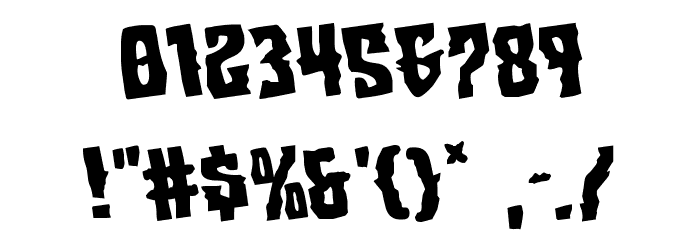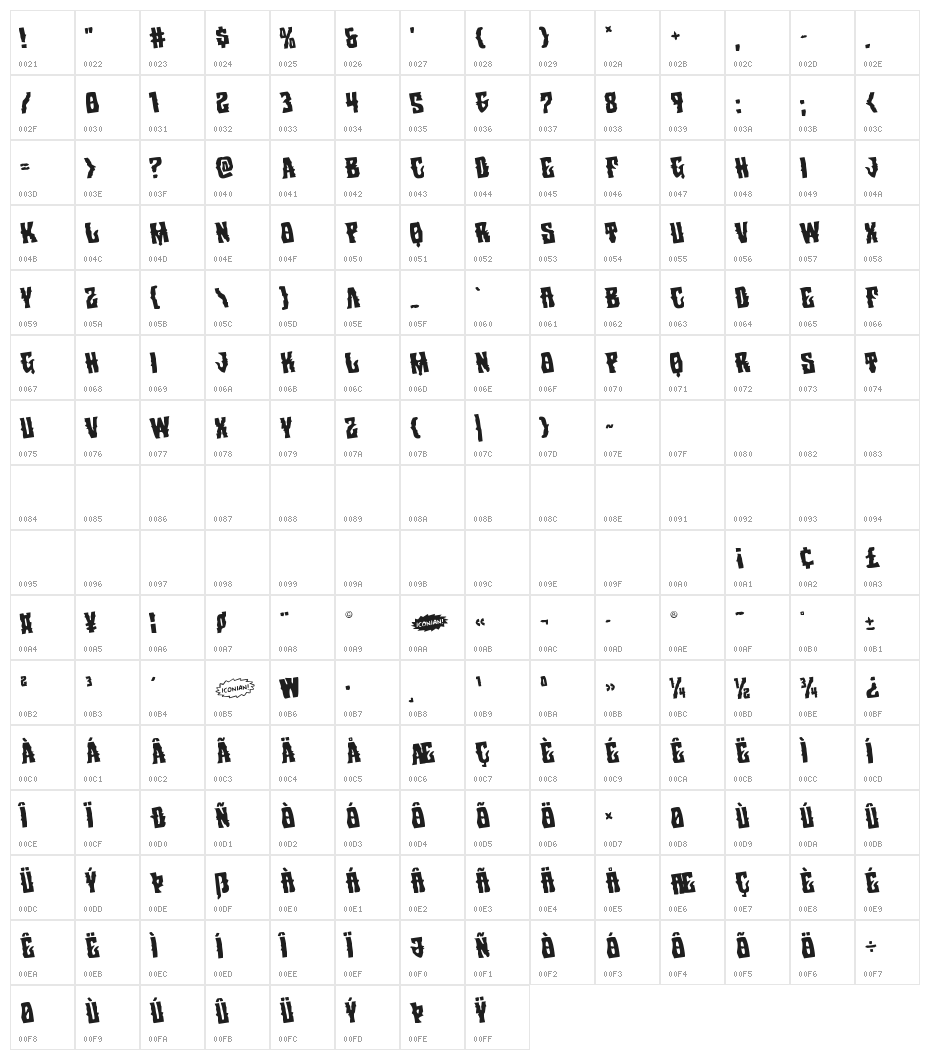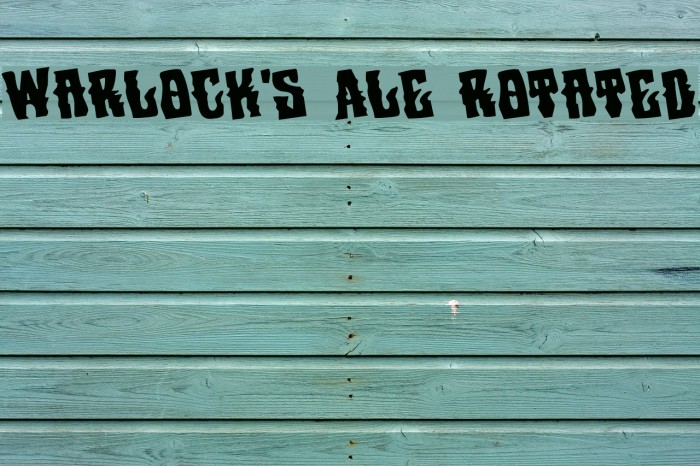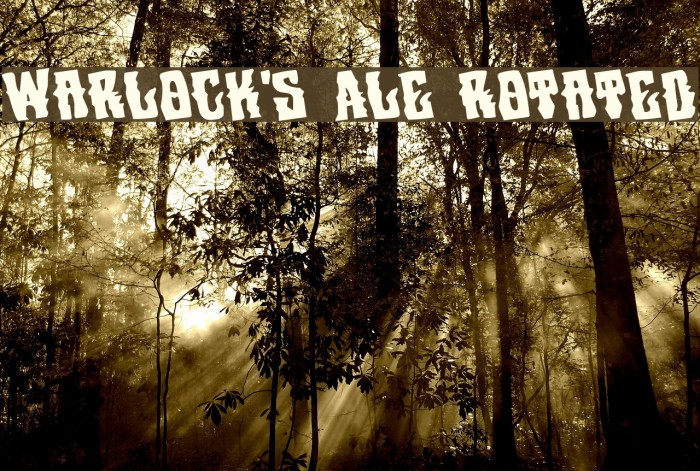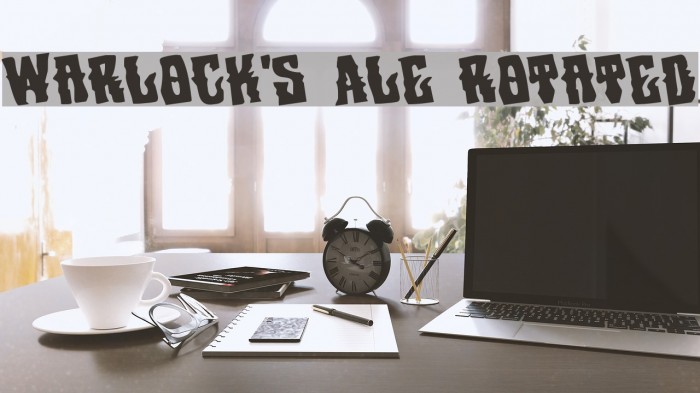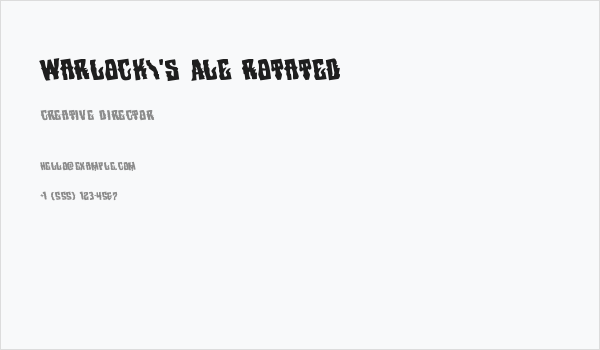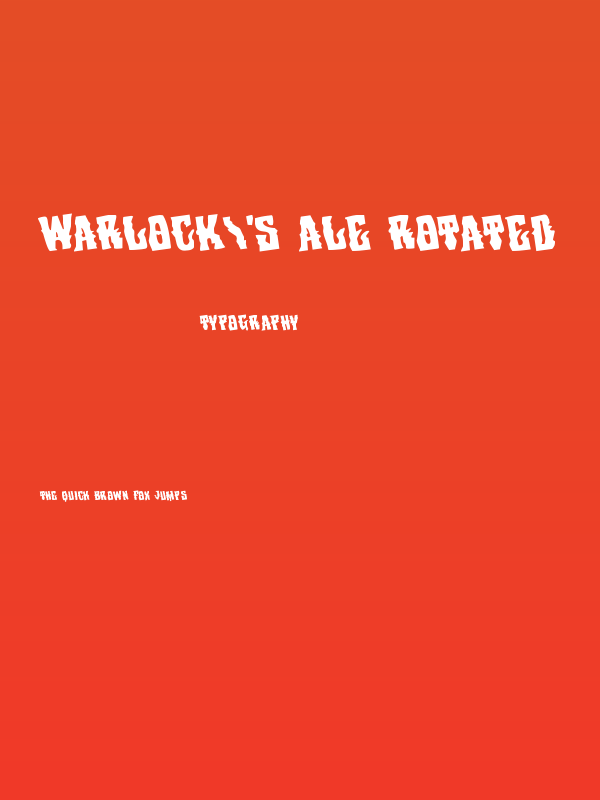
Warlock's Ale Rotated Font
Warlock's Ale Rotated Description
This font features a bold and dramatic style, characterized by its jagged edges and irregular shapes, giving it a distinctly gothic and mysterious appearance. The uppercase and lowercase letters maintain a consistent theme, with sharp angles and a slightly distressed look that adds to its unique charm. The numbers and special characters follow the same design principles, ensuring a cohesive appearance across all glyphs. This font is perfect for projects that require a touch of the supernatural or a nod to fantasy themes, making it ideal for book covers, posters, or themed event invitations.
| Overall Style | Gothic, Mysterious, Decorative |
| Proposed Projects | Ideal for fantasy book covers, Halloween event posters, or themed invitations. |